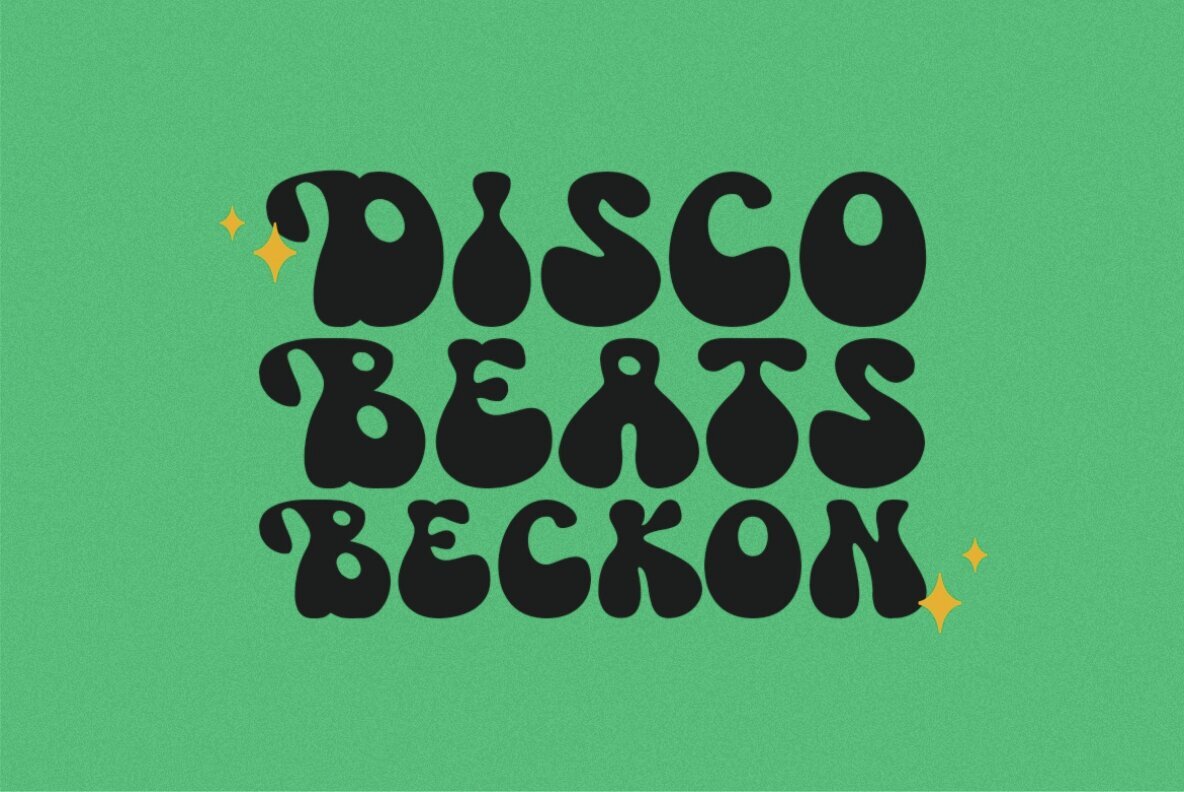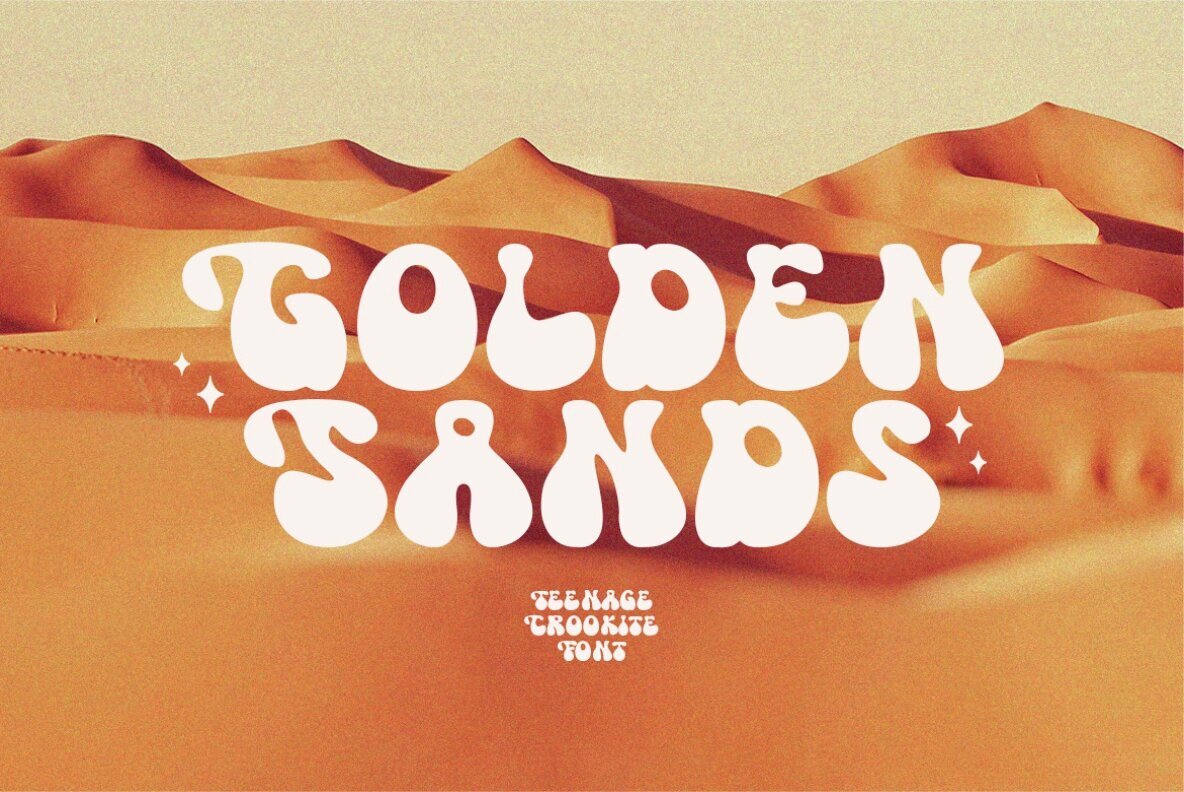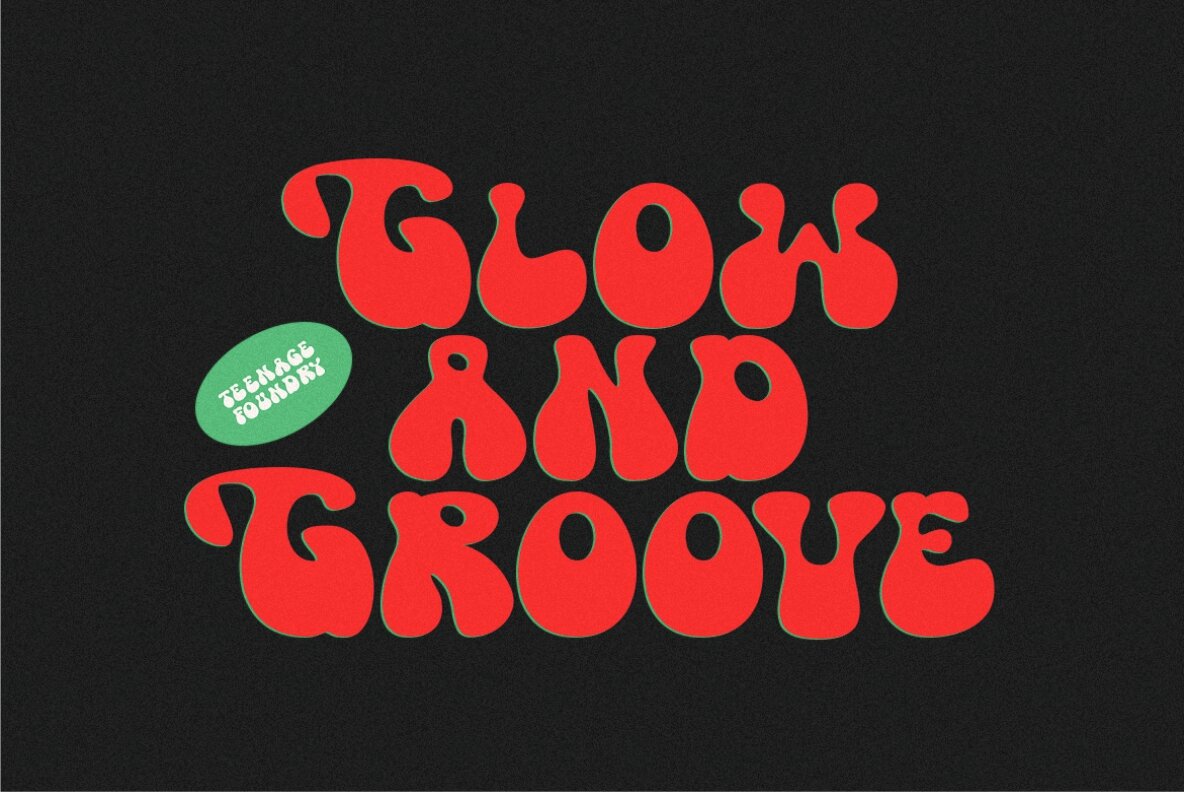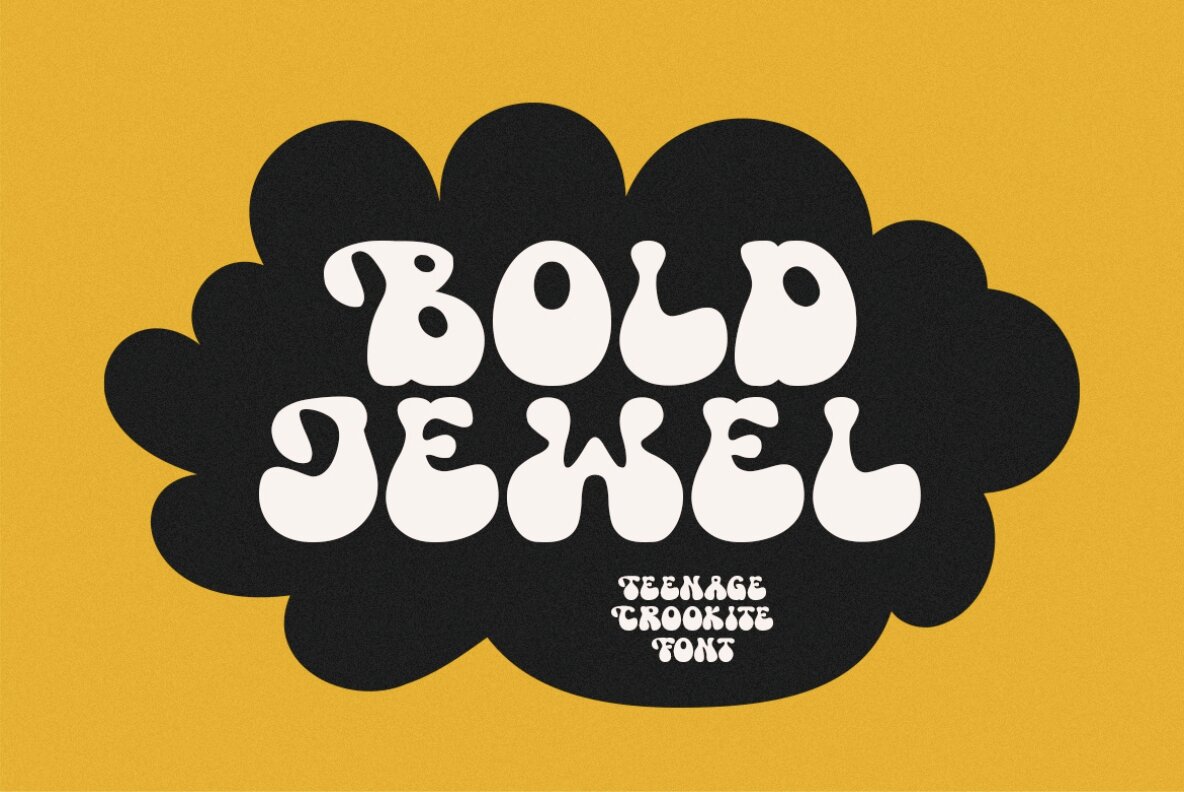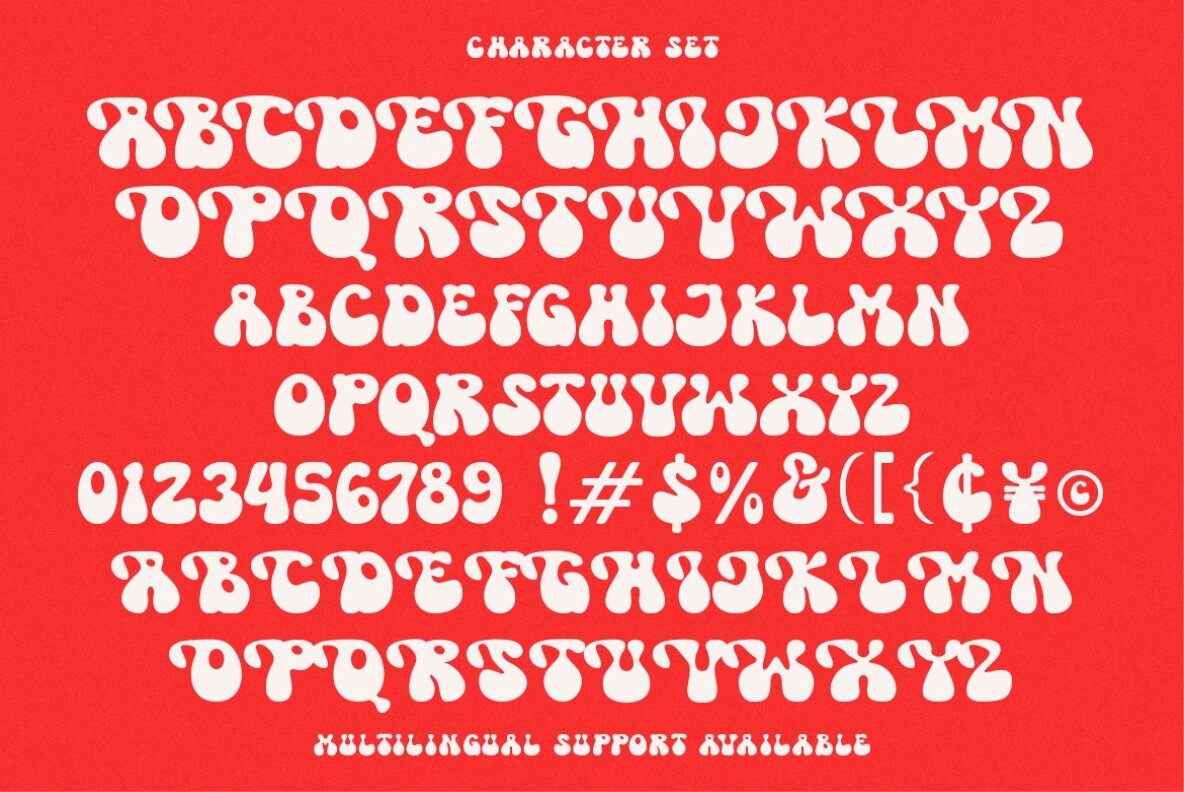
Teenage Crookite – Groovy Display Font By Teenage Foundry
Introducing our latest font creation – a groovy typeface that’s sure to transport you back to the funky, psychedelic era of the 60s and 70s! With its bold, playful style and unique character, this font is perfect for adding a retro feel to your design projects.
This font is incredibly versatile and can be used for a range of design projects, including posters, album covers, branding, and more. Its groovy style gives it a unique character that’s sure to make an impact.